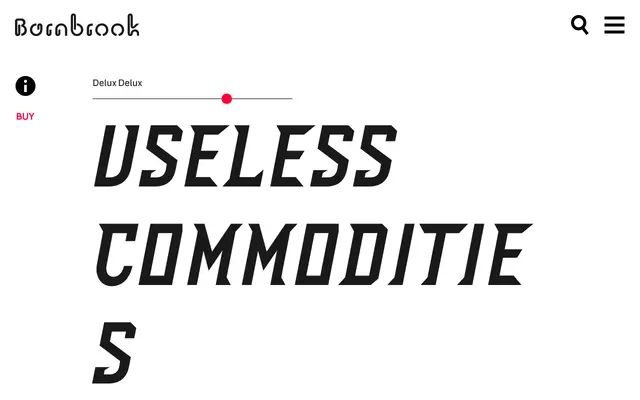
Delux
A display typeface channelling 1950s pulp science fiction and painted military lettering, built around a retro-futuristic tension between optimism and longing.
Delux draws on the graphic language of mid-century pulp sci-fi novels and military painted letterforms to produce something that feels simultaneously forward-looking and nostalgic. The name itself is an ironic provocation, critiquing the designer-label economy and the manufactured desirability that detaches objects from their designed function. It sits naturally in editorial and cultural projects where conceptual weight matters as much as visual style.
A display typeface drawing on 1950s pulp sci-fi and painted military lettering, giving it a retro-futuristic character distinct from conventional text or body type categories.